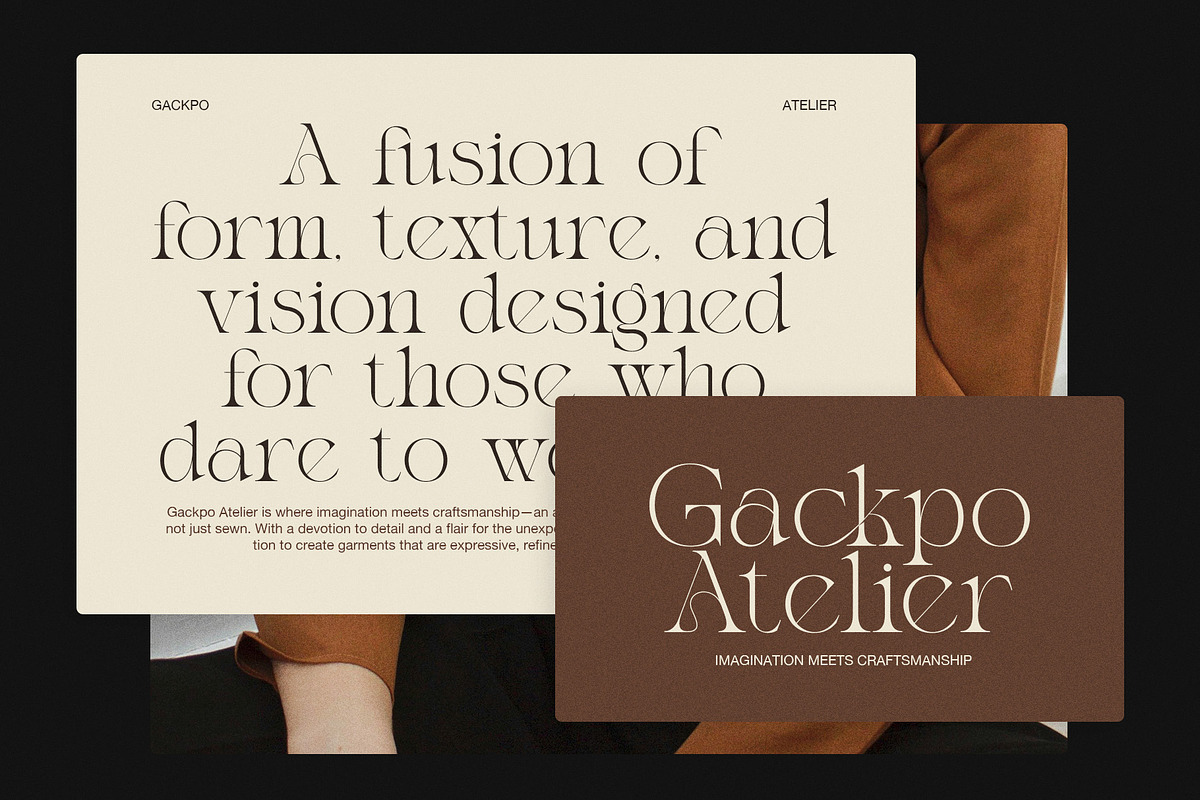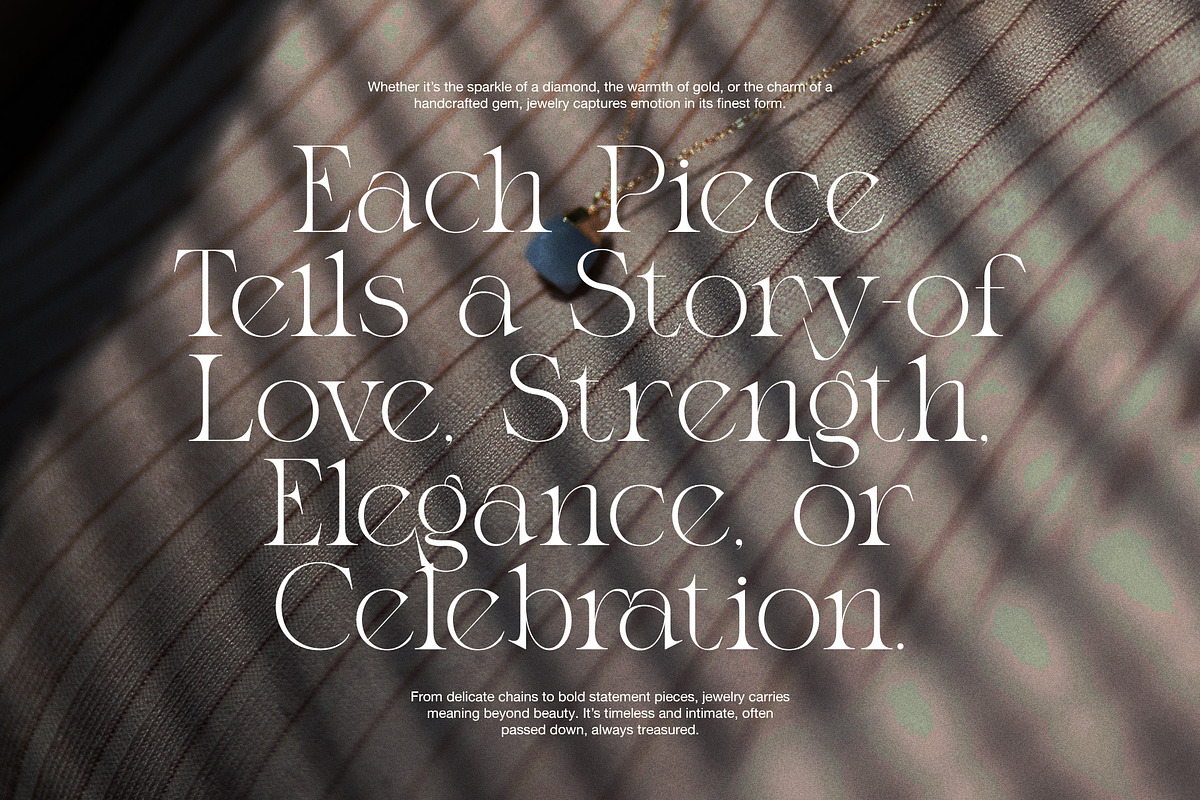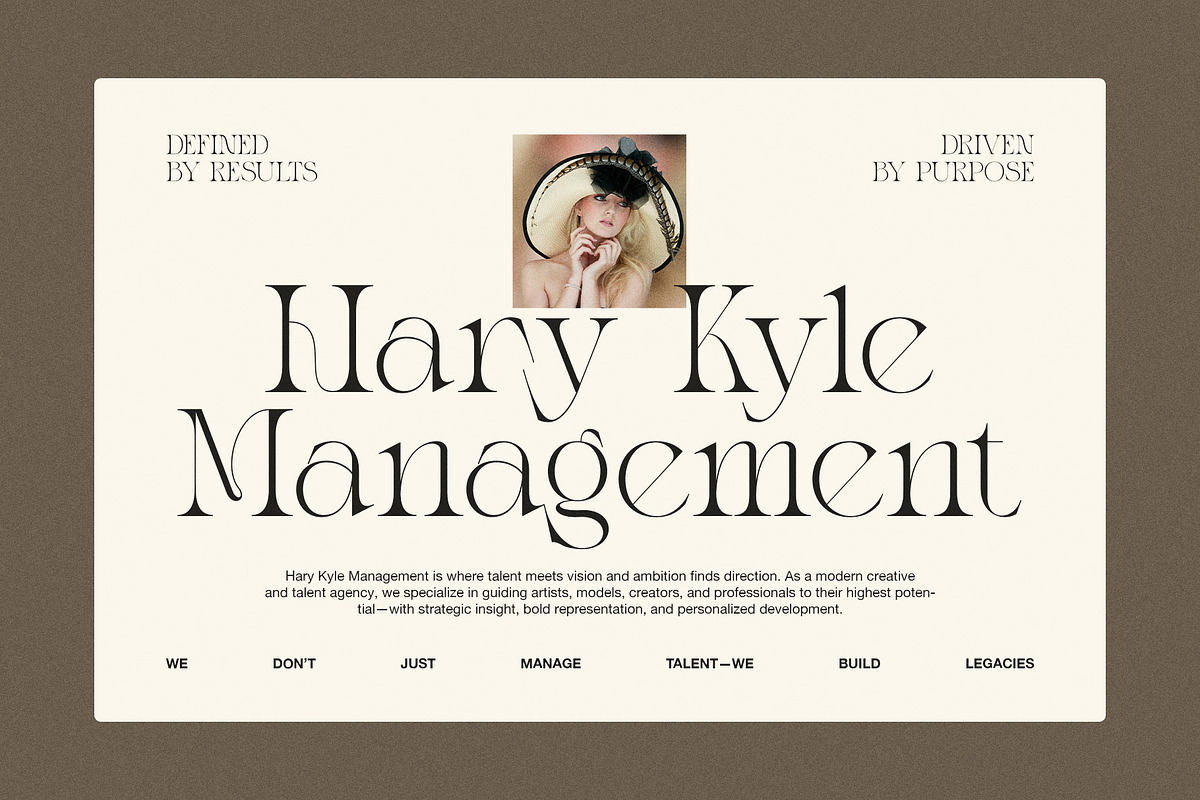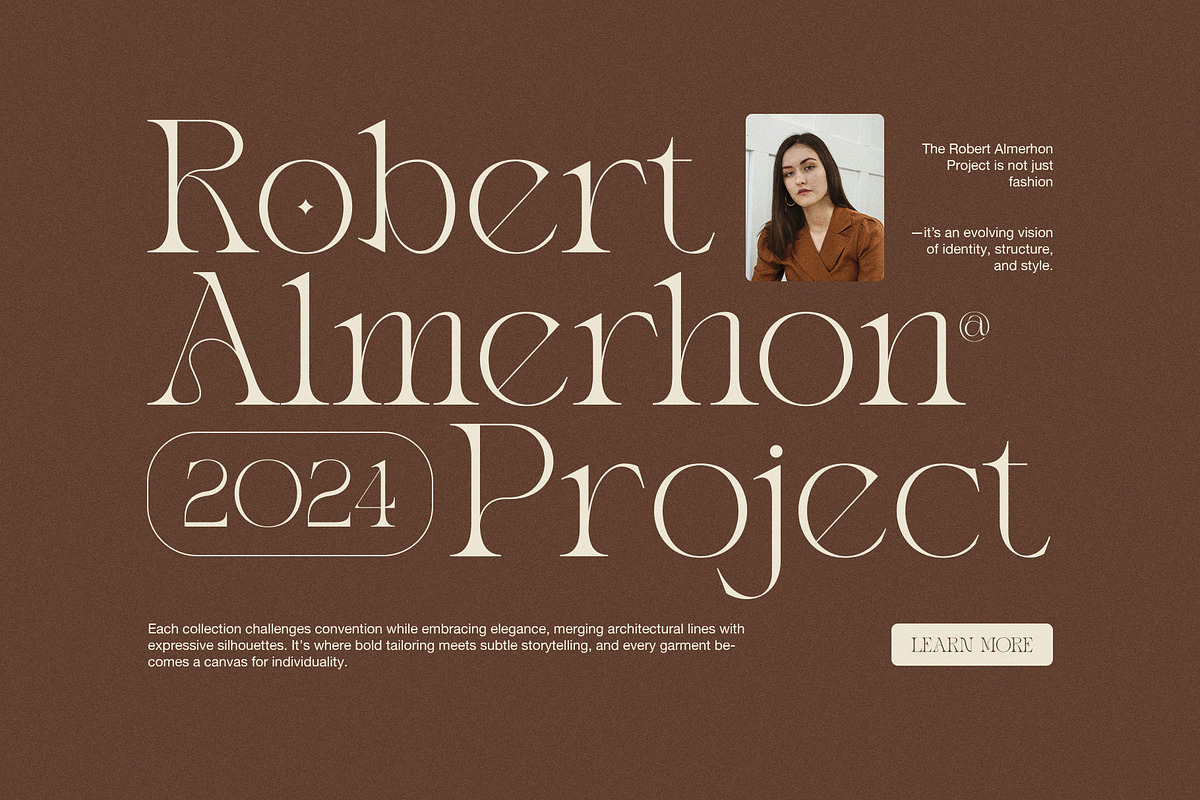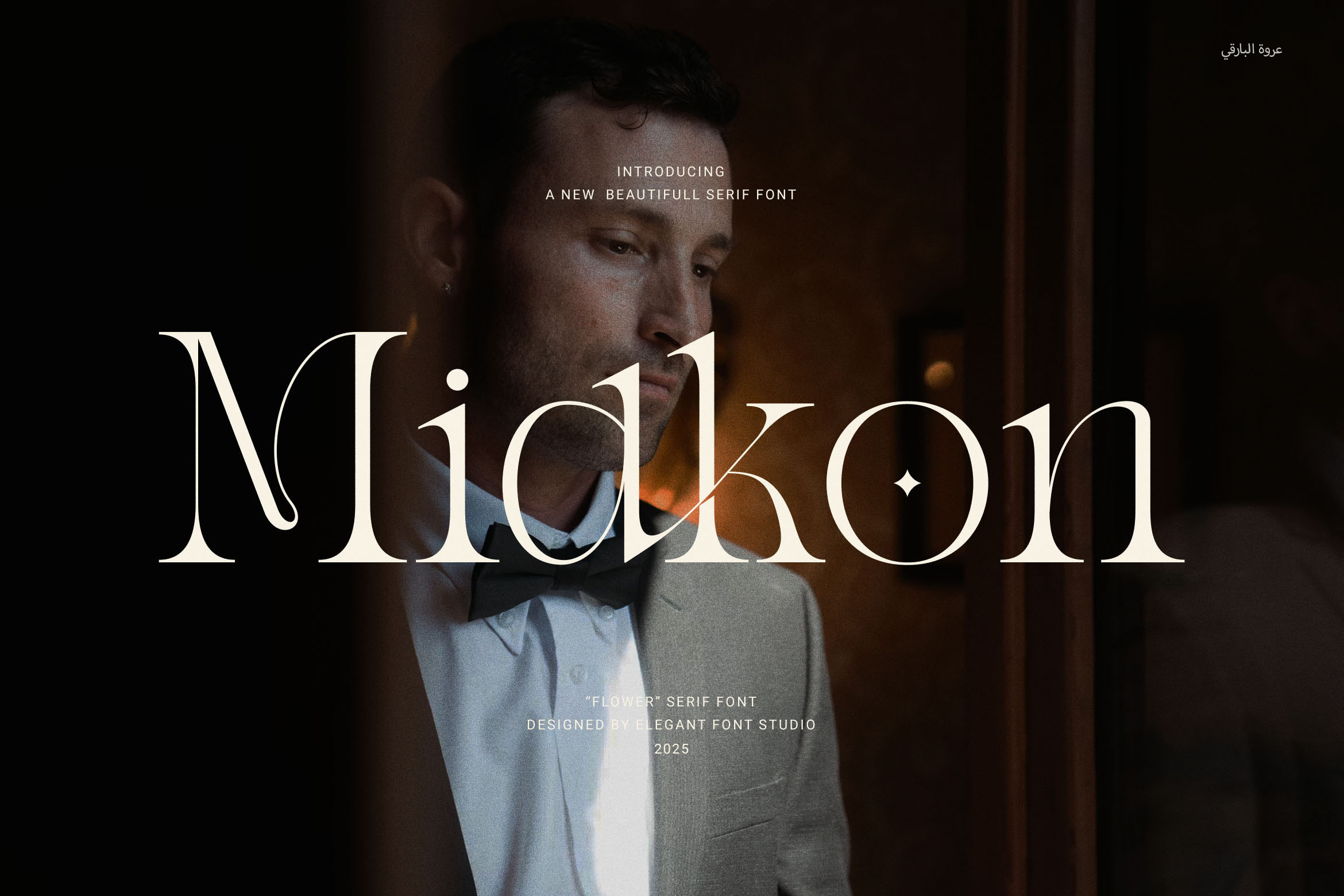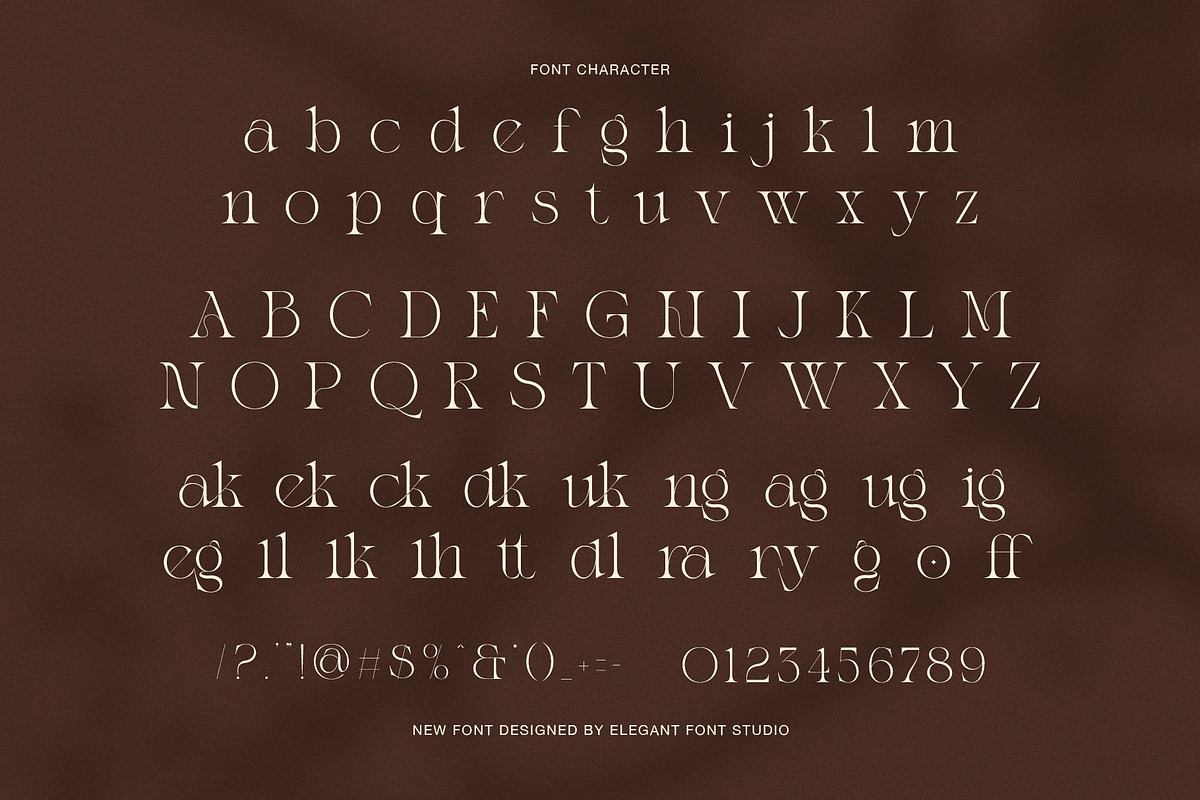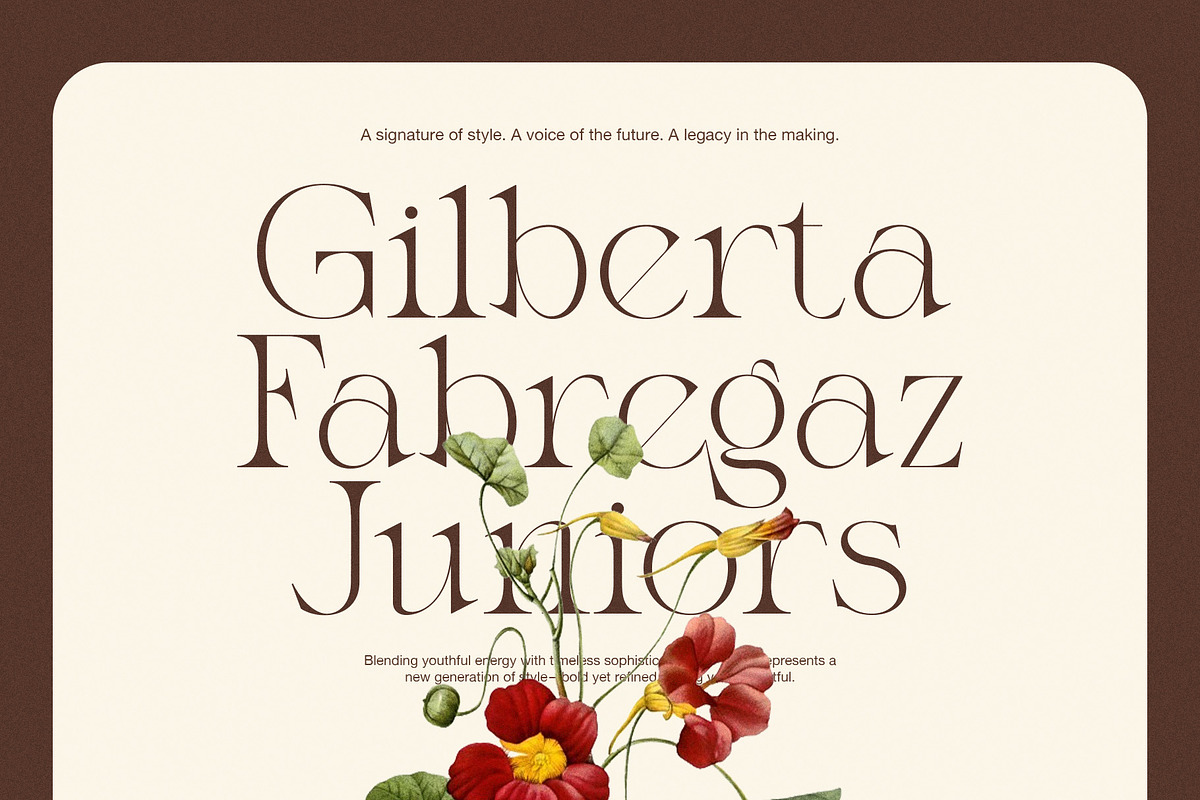
Midkon Elegant Serif Font
Midkon Elegant Serif Font – Modern Luxury for Powerful Visual Branding
Midkon is a modern elegant serif font built to give your brand a refined and professional image. With well-balanced proportions and stylish ligatures, this typeface blends beauty with function—making it ideal for any premium design project.
Midkon was crafted for creatives, agencies, and businesses that want their visual content to feel polished, upscale, and timeless. Whether you're working on a boutique brand, high-end packaging, editorial layouts, or luxury websites, this font adapts beautifully to both print and digital platforms.
The smooth contrast, clean curves, and proportional spacing allow for excellent readability, while the elegant ligatures bring personality to each word. This makes Midkon perfect for logos, headlines, and branding materials that need a high-impact yet subtle visual identity.
✨ Why Choose Midkon Elegant Serif Font?
Timeless Serif Design – Elevates your design with a sophisticated, high-end feel
Functional Ligatures – Creates elegant, smooth text transitions
Balanced Letterforms – Offers a harmonious and clean structure across all formats
Versatile for Creative Use – Ideal for logos, websites, magazines, products, and more
Perfect for Professional Brands – Great for fashion, beauty, food, and boutique projects
With Midkon, you're not just choosing a font—you’re choosing a statement piece for your brand that reflects elegance, clarity, and strength.